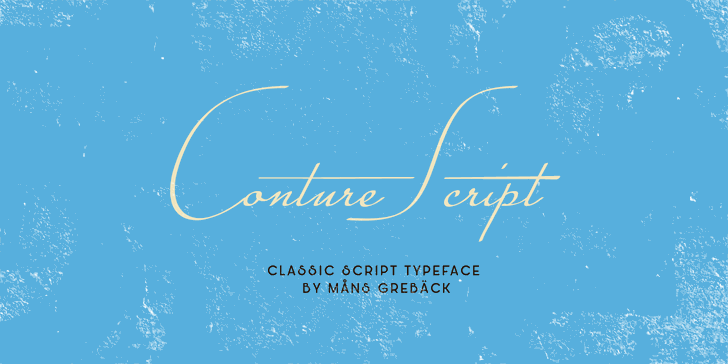
Free Conture Script Font
Today we're glad to feature this free conture script font. Font Space has created this amazing and beautiful free typeface. This is absolutely cool font so you can easily make world-class designs.